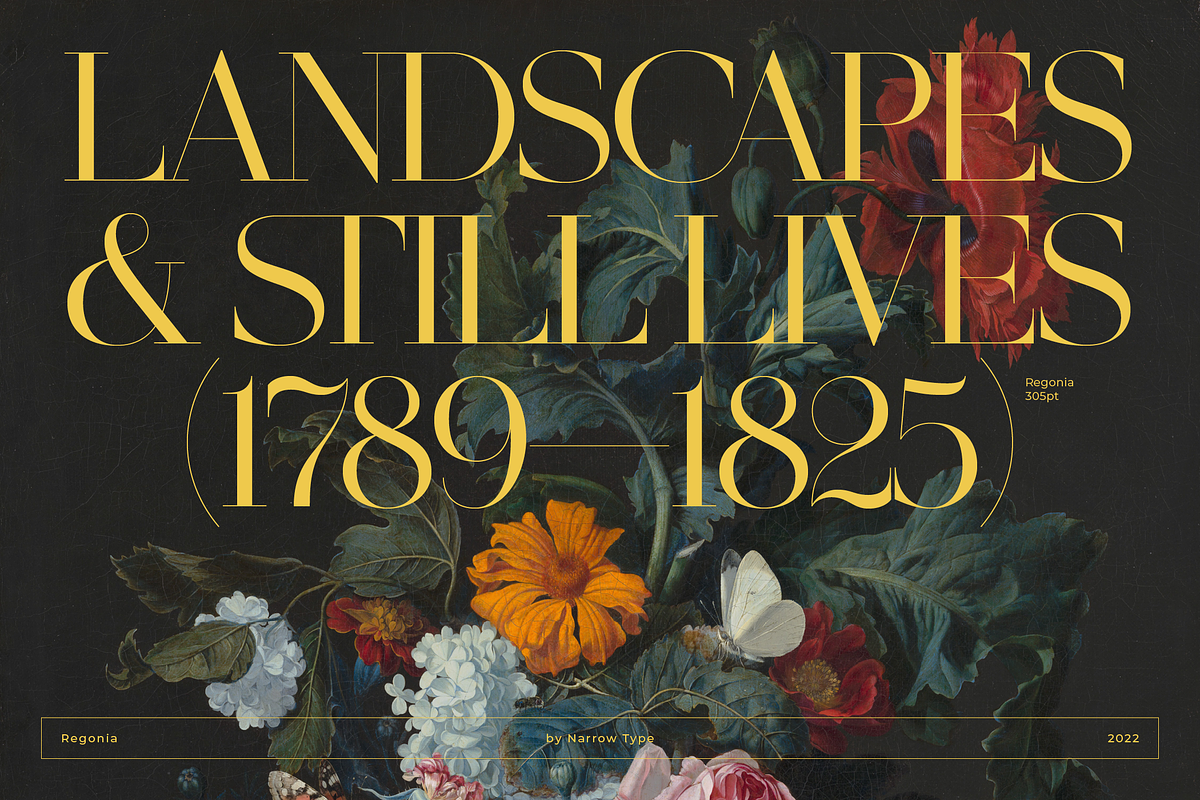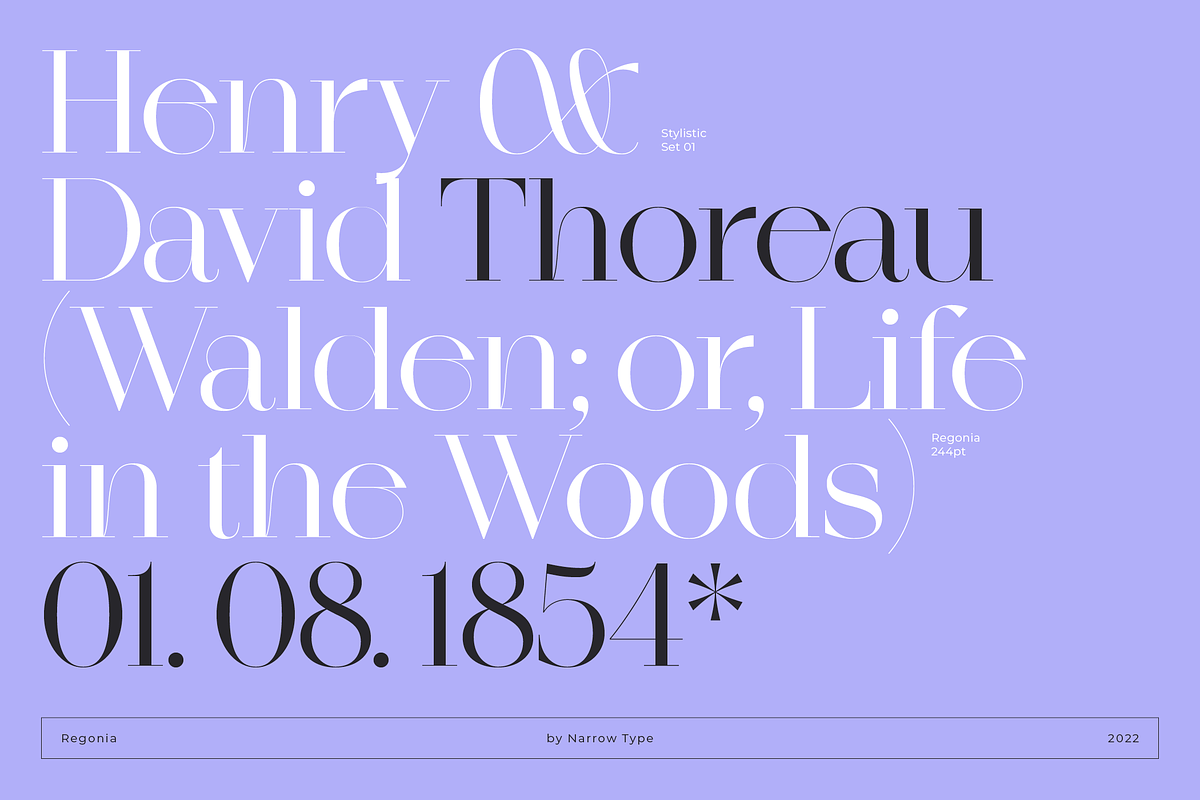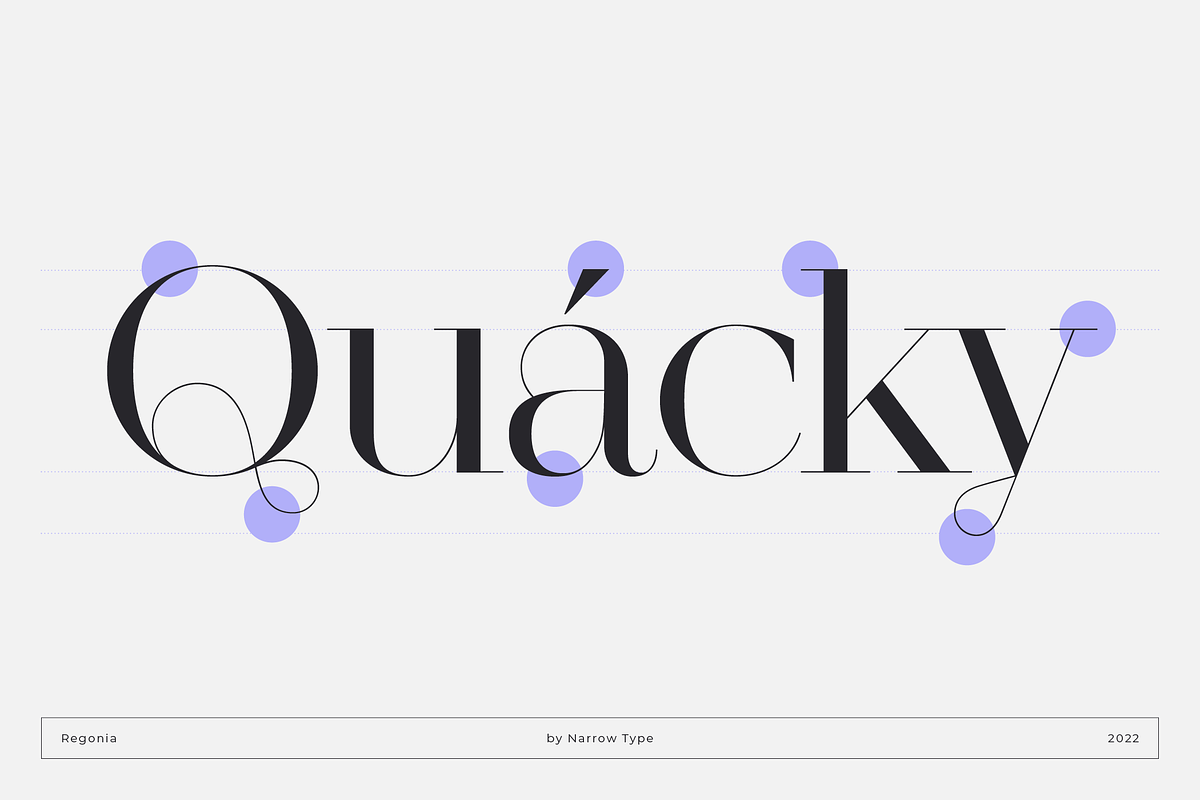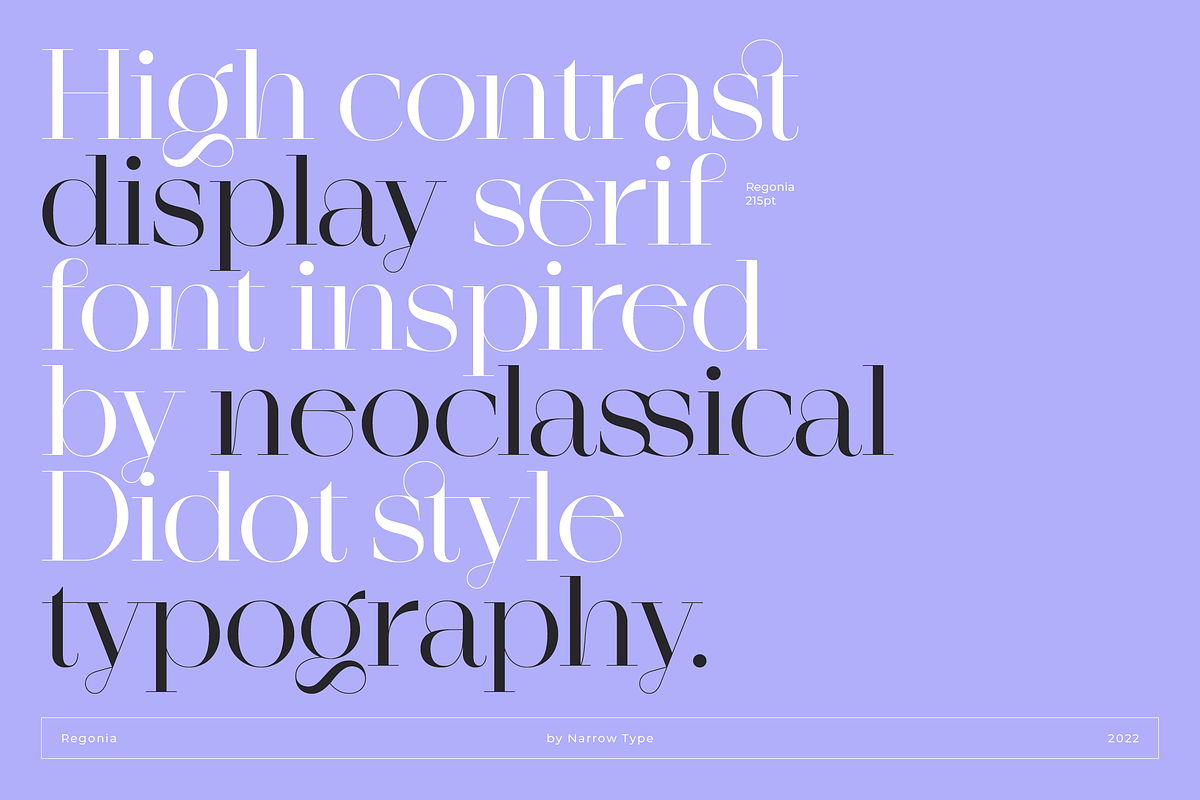
Regonia Font
Regonia is a high-contrast display serif typeface inspired by neoclassical Didot style typography. Thin hairlines and many unique details make Regonia an elegant and contemporary typeface.
It has a large x-height and works perfectly in headlines or bigger sizes. It is also equipped with many ligatures and alternative glyphs, which will make your projects more unique.
It is a perfect font for branding, print, social media, web etc. It is clean and fine typeface with touch of nature. Make unique project with this modern but classic font.
• Uppercase, lowercase, numbers, symbols and punctuation
• Standard and discretionary ligatures
• Stylistic alternates
• Multilingual
• 456 glyphs in total